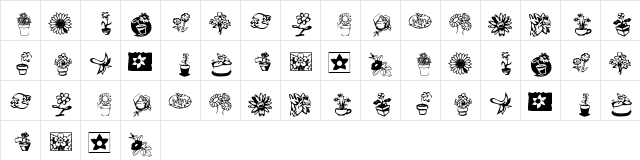
KR Kat's Flowers 3 Regular
Design Context for KR Kat's Flowers 3 Typeface
KR Kat's Flowers 3 is a composed and adaptable typeface that performs quietly and consistently across a wide range of design contexts.